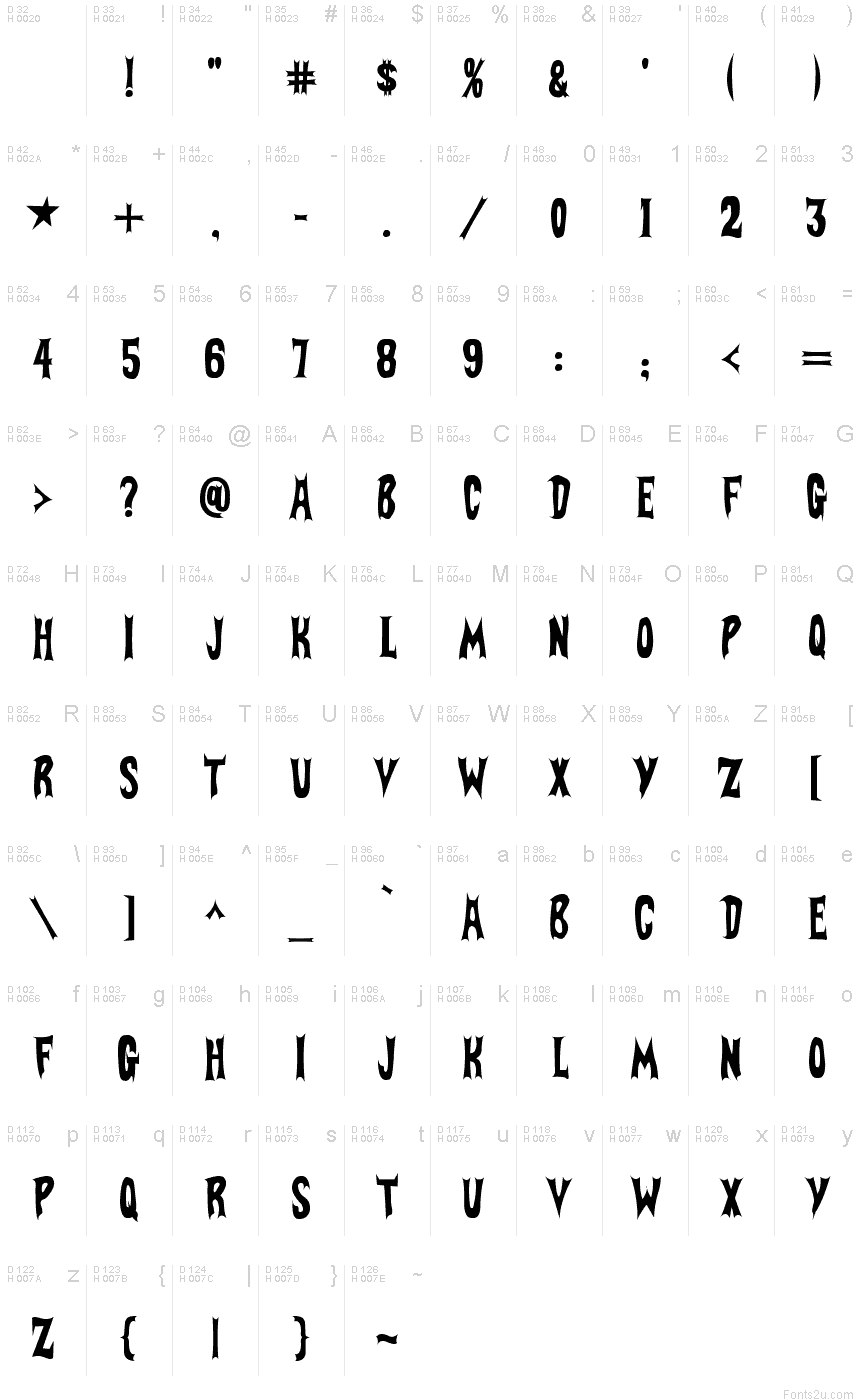
BatFont
BatFont font by J.F.Y.Daniel Gauthier of GautFonts drips with spooky energy-chunky, uneven strokes that look like they’ve been cut from midnight paper, then left to sag and melt. The tall letters wobble in a playful way, with bite-like notches and blobby edges that feel more cartoon-creepy than gory. BatFont is a free scary display font, and its inky silhouettes stay readable even when you crank up the attitude.
Using BatFont, you’ll get instant atmosphere on Halloween posters, haunted house flyers, horror-comedy titles, spooky party invites, streamer overlays, eerie sticker packs, and social ads that need a quick jolt. Keep it large for maximum drip, and pair this free font with a clean sans (like a simple grotesk) for dates, locations, and fine print so the chaos stays controlled.